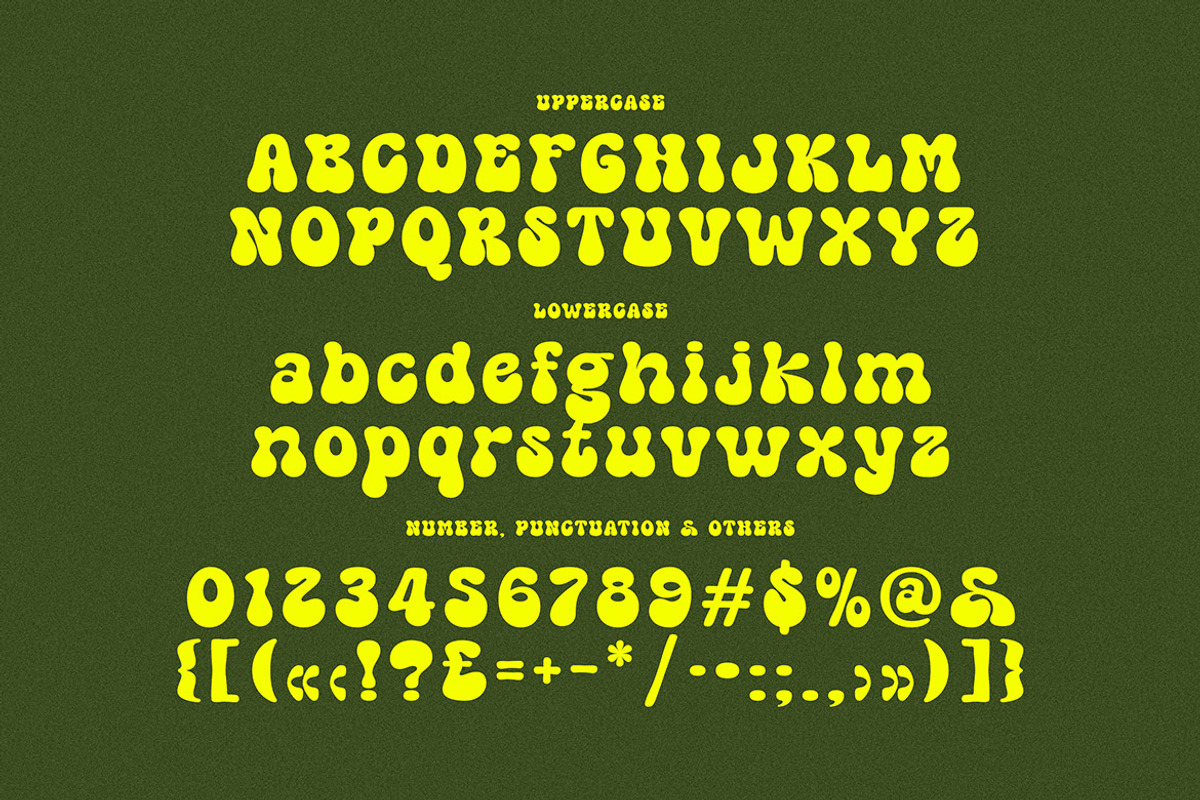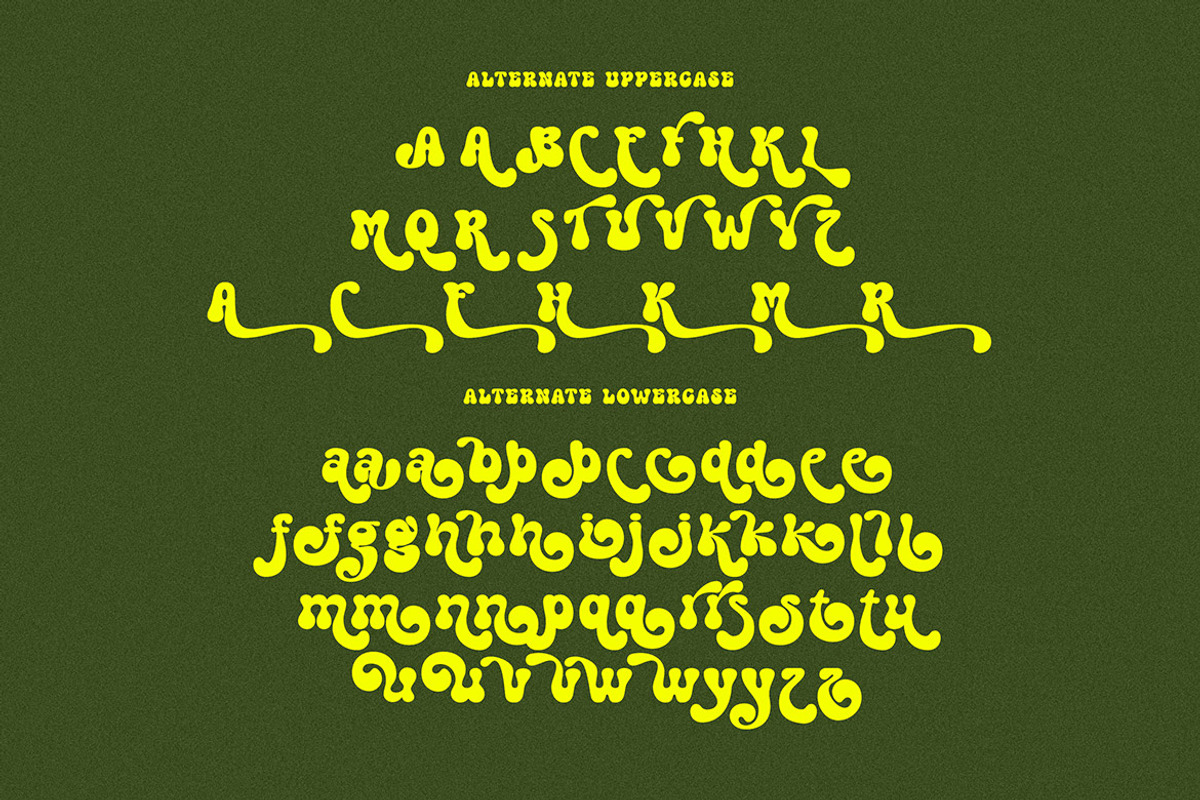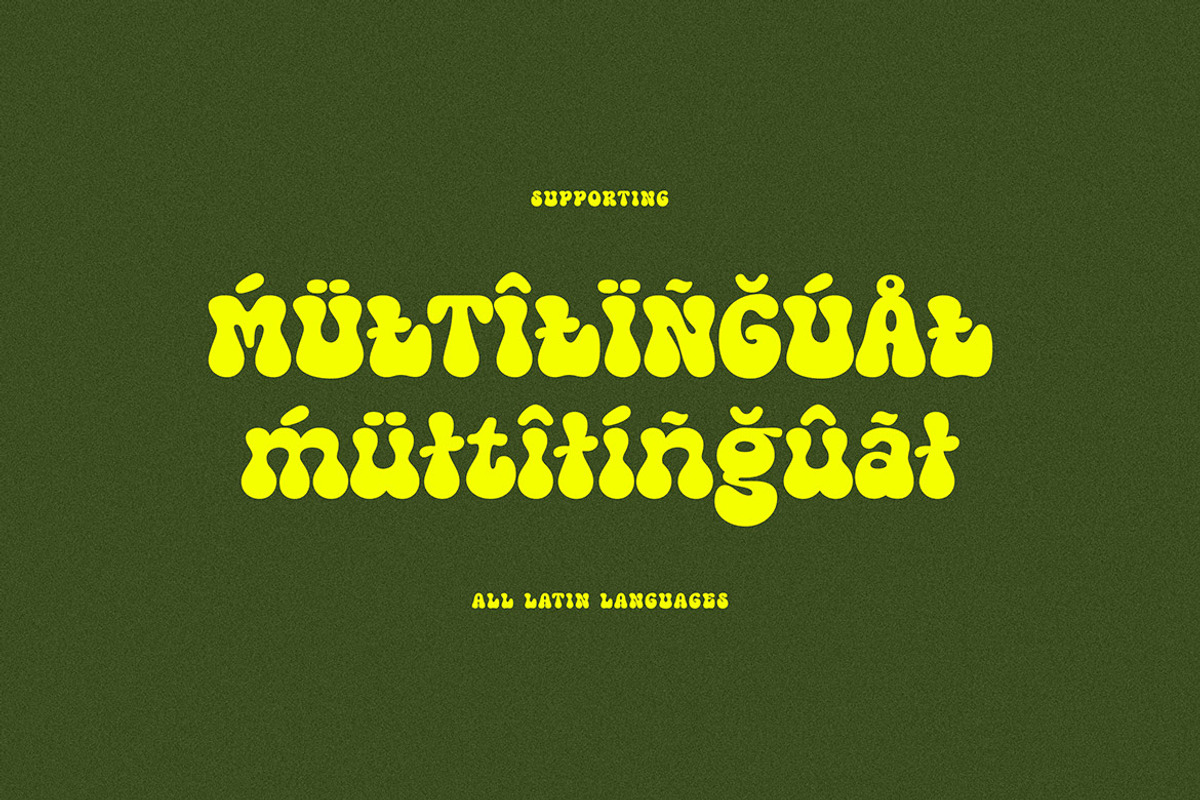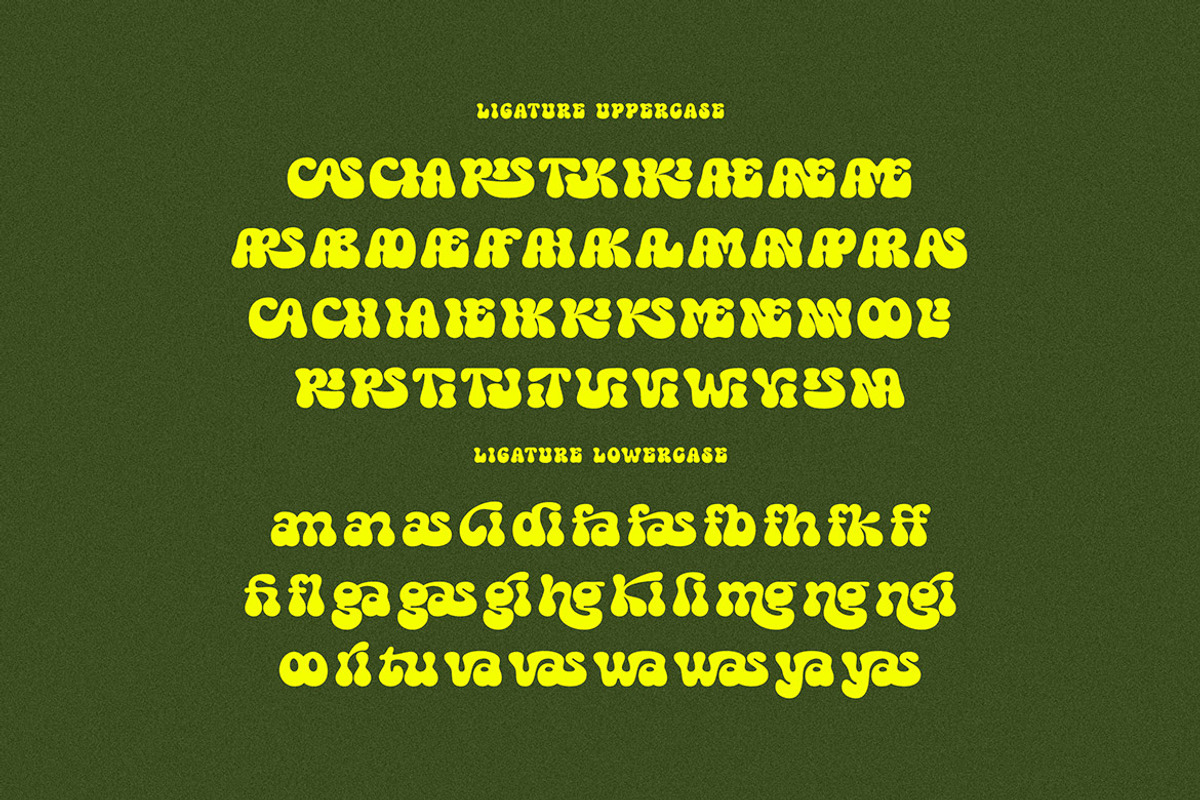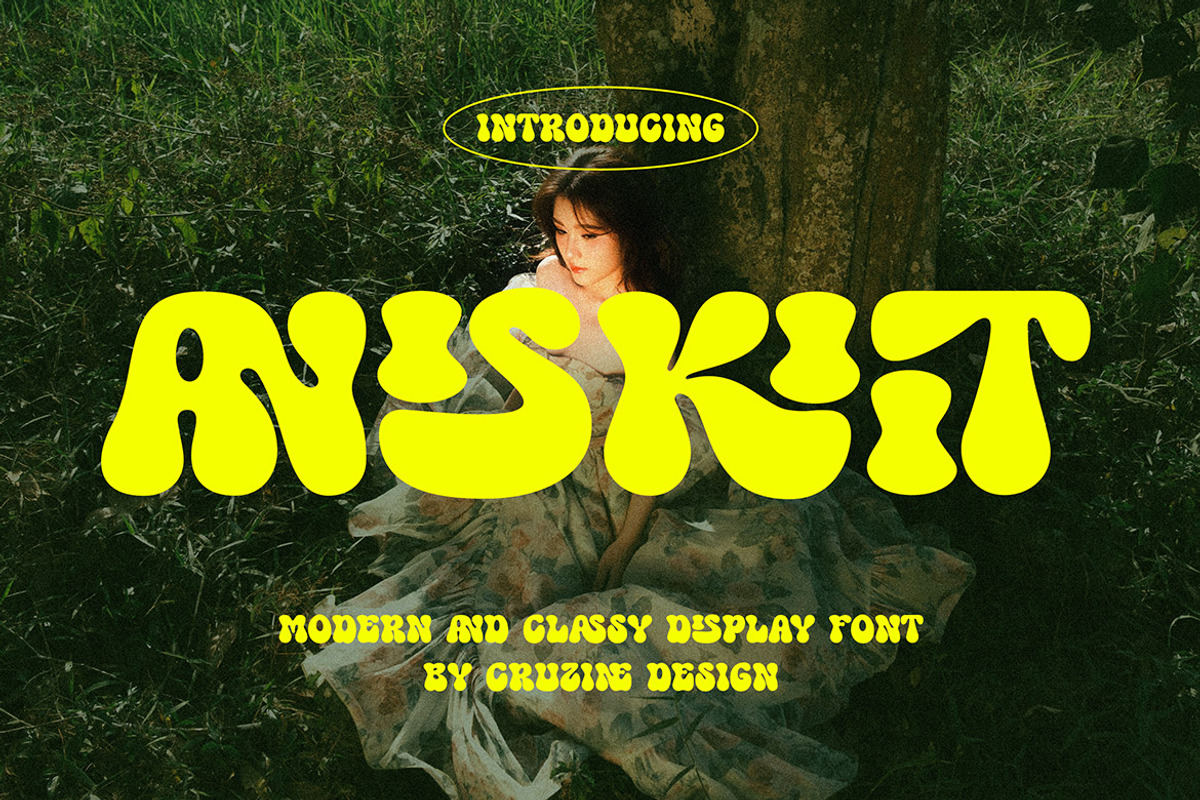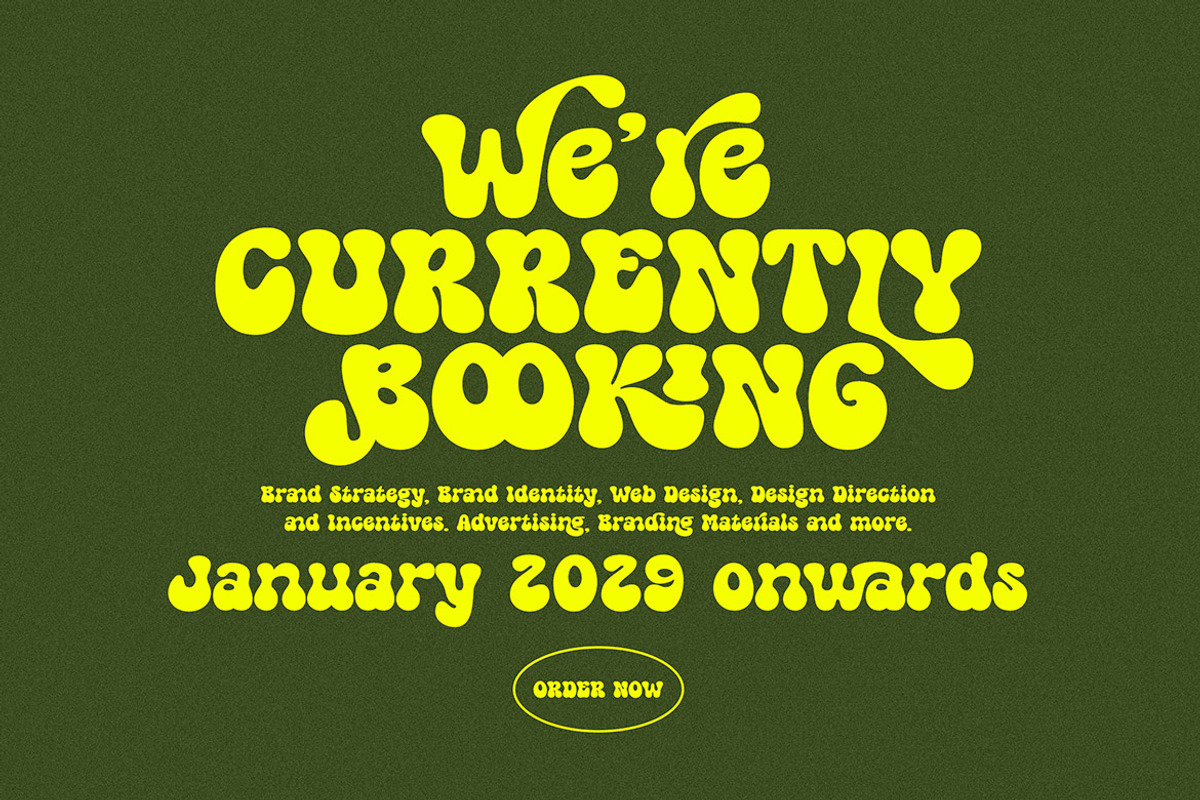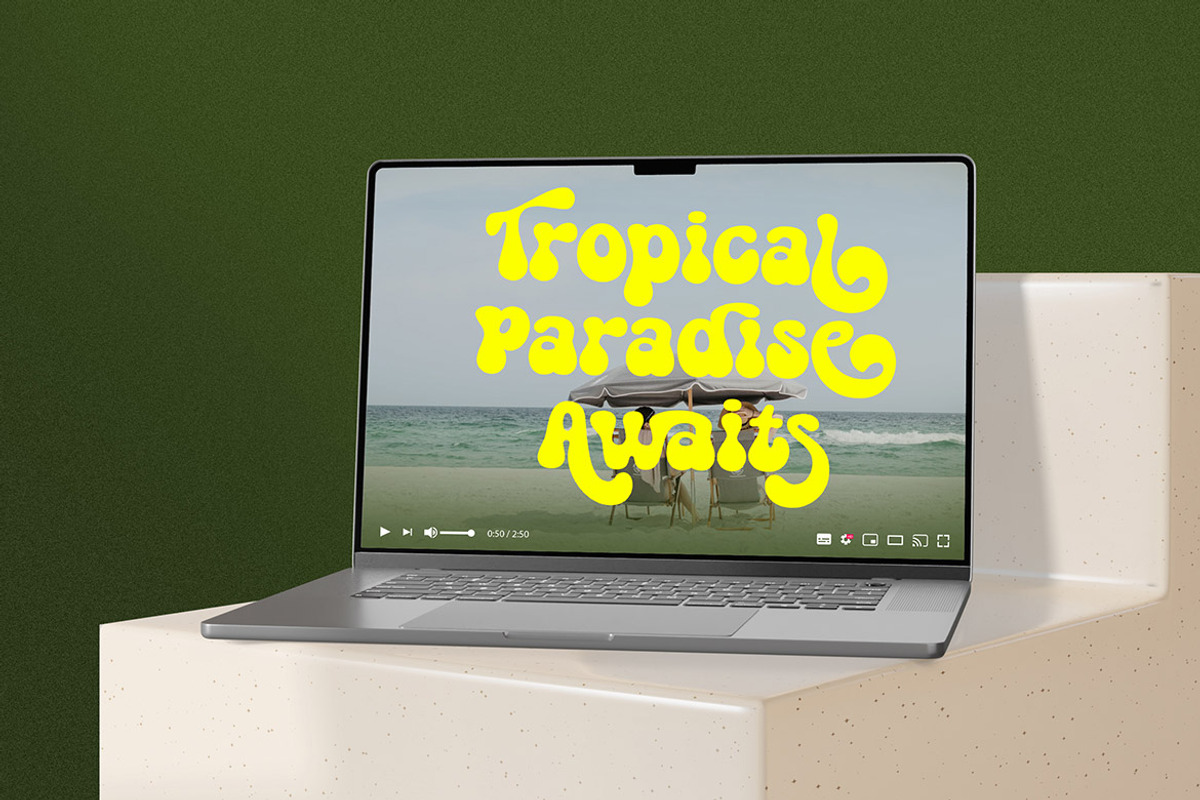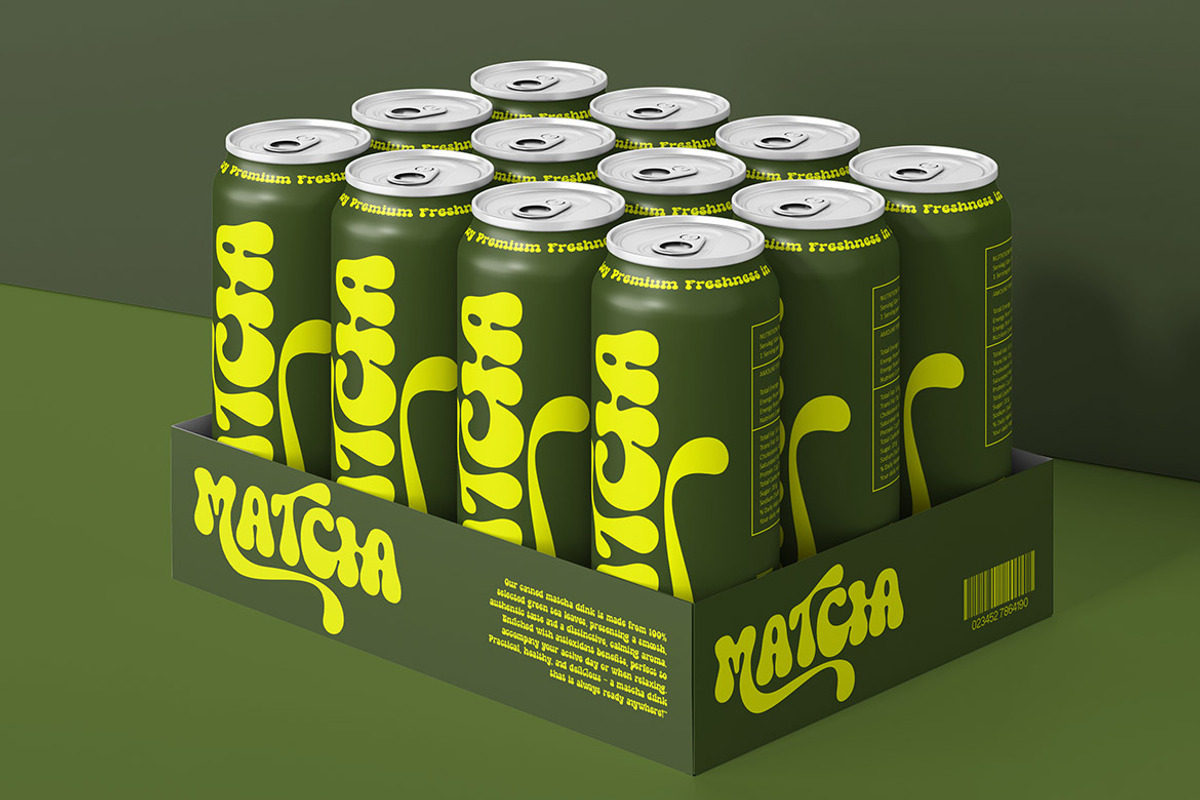
Aniskiit
Bubbly, groovy, funny, retro & rounded style display font for your new playful projects. Happy, cute, bold and quirky style on Aniskiit font will be great for any creative branding project. Lot of alternates and ligatures will help you to create unique and original logo design or website header! Enjoy :)
- Alternate characters
- Lot of ligatures
- Great for modern branding projects!!